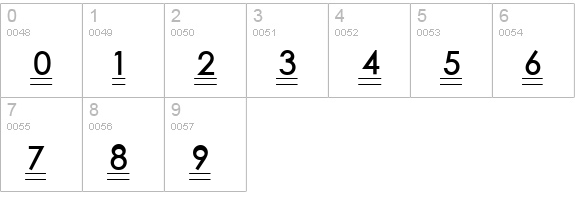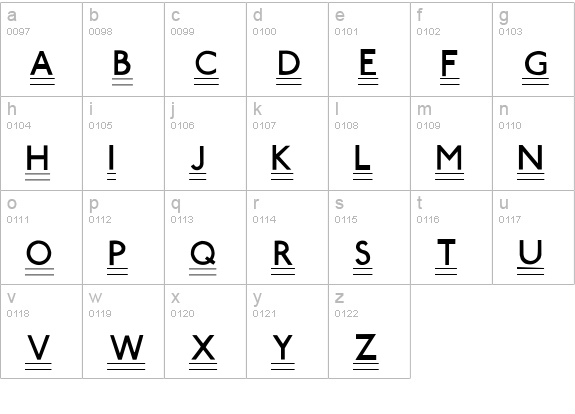
Tube Station-Plus. Font Details
Tube Station-Plus is a cutting-edge font that exudes modernity and sophistication. With its sleek and streamlined design, this font effortlessly captures the essence of urban life and urbanity. The font's clean lines and contemporary styling make it perfect for a wide range of design projects, from branding and logo creation to advertising and editorial design. One of the standout features of Tube Station-Plus is its versatility. Whether you're aiming for a bold and striking look or a more subtle and refined aesthetic, this font has got you covered. It comes in various weights and styles, allowing you to experiment and find the perfect fit for your project. But what sets Tube Station-Plus apart from other fonts is that it is completely free. Yes, you heard that right! This amazing font is freely available to download at FontsMarket.com. You can enhance your creative endeavors without spending a dime. Downloading Tube Station-Plus is a breeze. Simply head over to FontsMarket.com, locate the font, and hit the download button. Within seconds, you'll have access to this exceptional font, ready to take your designs to the next level. So why wait? Join the ranks of designers who have already discovered the power and beauty of Tube Station-Plus. Download this remarkable font today and unlock a world of design possibilities. Don't miss out on the opportunity to elevate your projects with this free and captivating font.